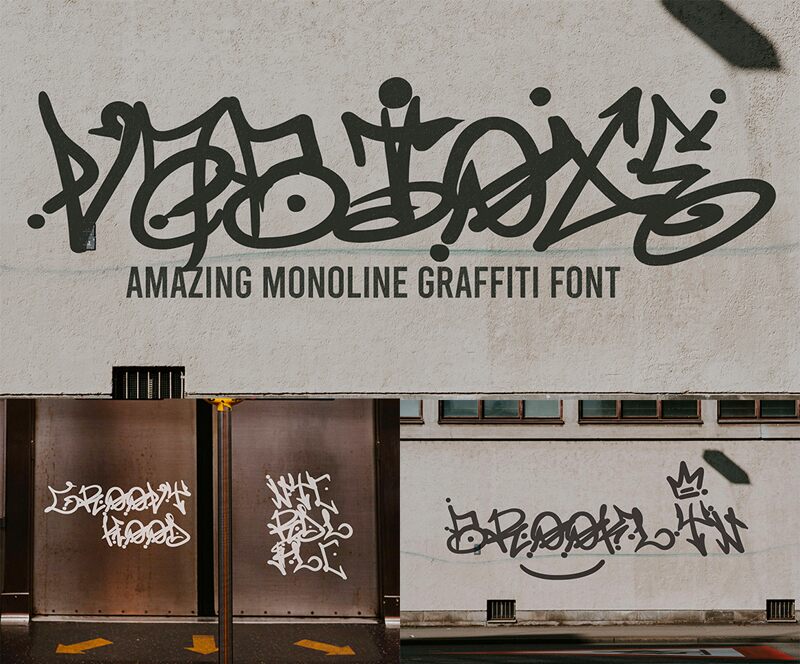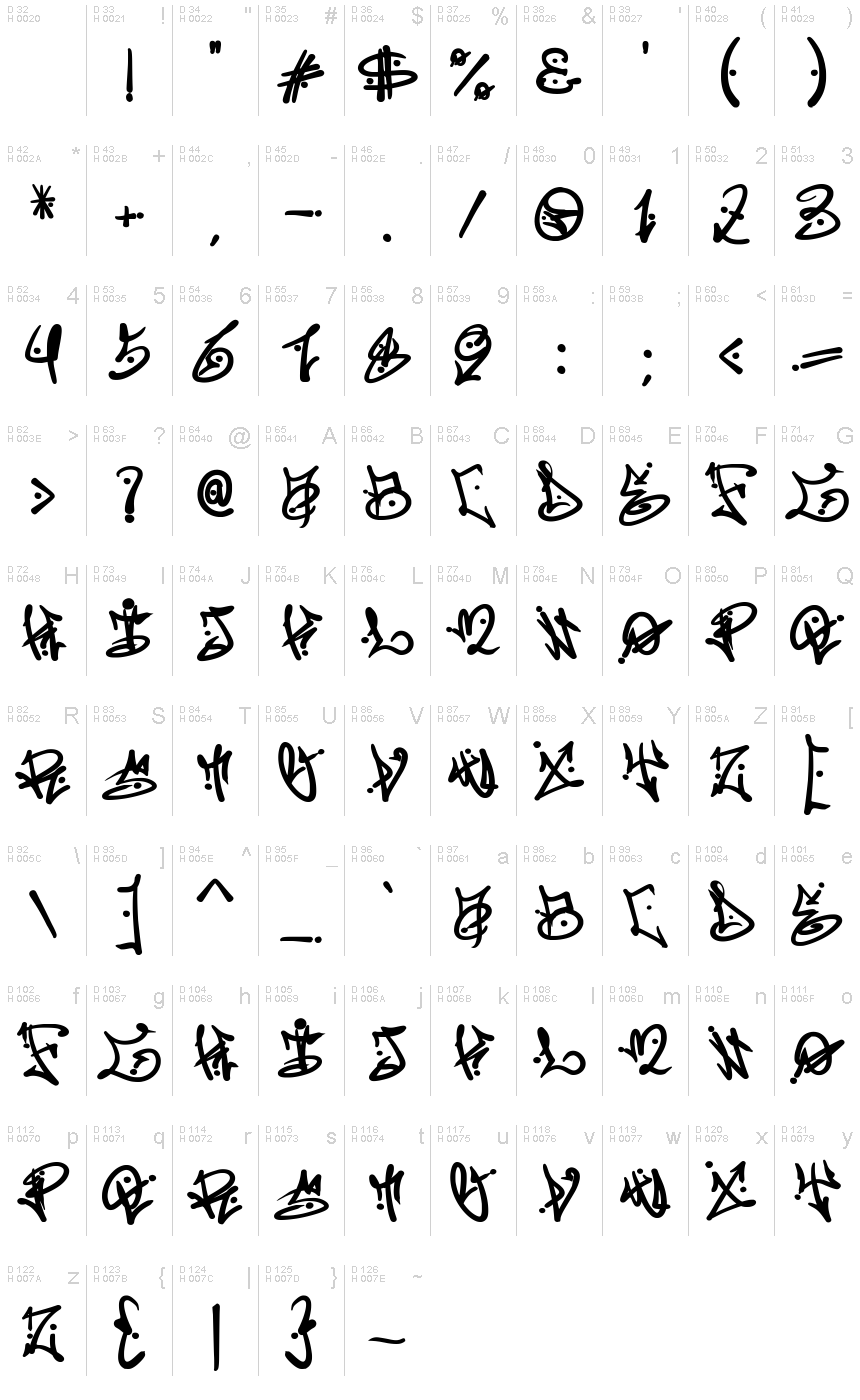
Vabioxe Graffiti
The Vabioxe Graffiti font by Cikareotype Studio exudes a bold, expressive energy that captures the raw, dynamic essence of urban graffiti art. With its dynamic, hand-drawn strokes and gritty textures, this font emanates a captivating sense of spontaneity and untamed creativity. Its distinctive character shapes and seamless flow between letters create a visually striking and visually engaging aesthetic, making it a compelling choice for projects seeking to convey a raw, edgy, or rebellious tone.
This versatile font can lend itself to a wide range of design applications, from eye-catching posters and album covers to impactful branding and packaging. Its strong, assertive personality makes it an excellent selection for projects requiring a bold, attention-grabbing visual identity, such as streetwear collections, music events, or rebellious-themed campaigns. The Vabioxe Graffiti font's unique character and versatility make it a powerful tool for designers seeking to inject a dose of raw, uncompromising style into their work.